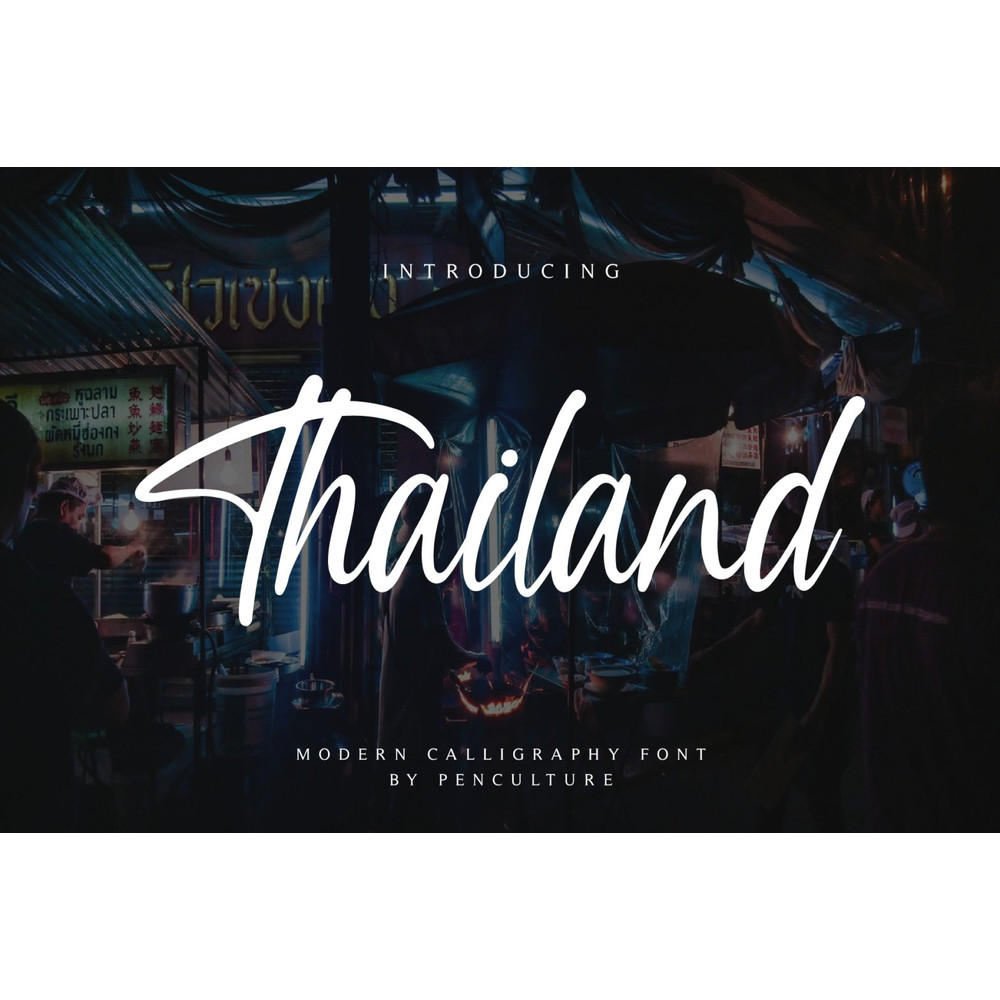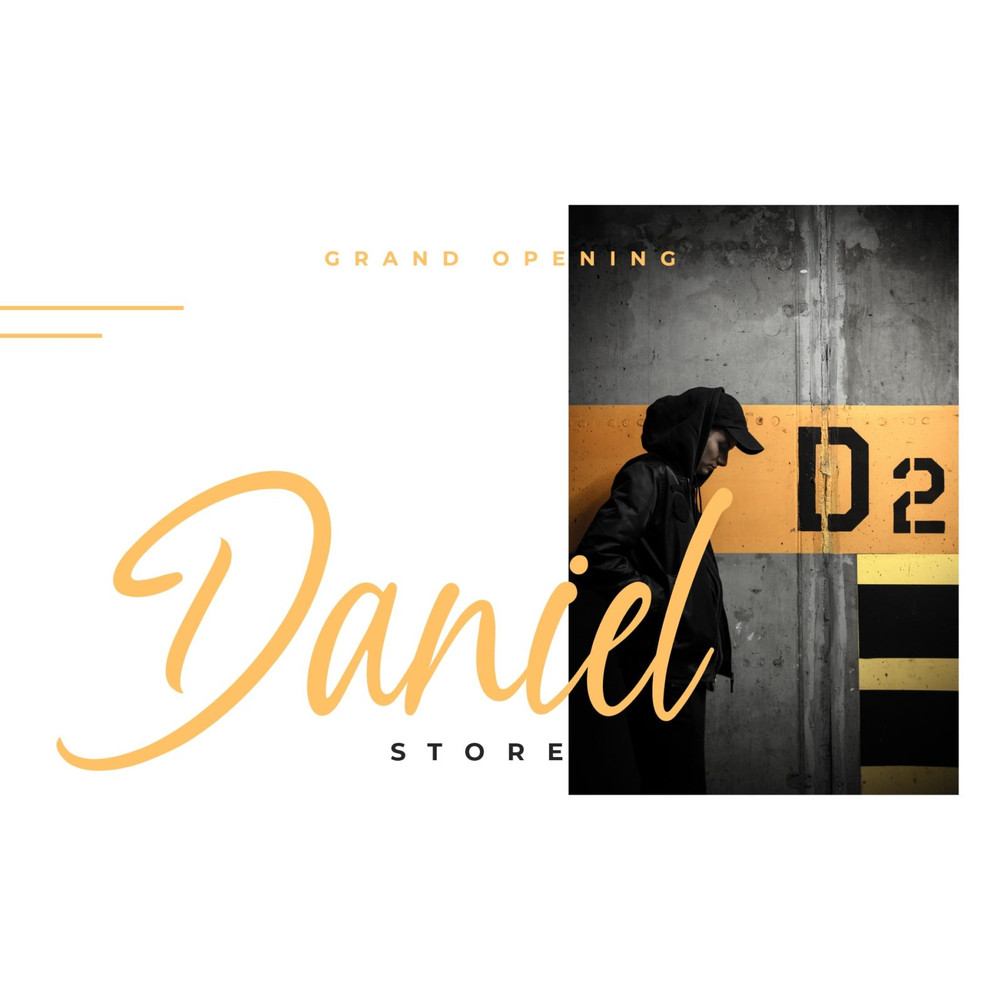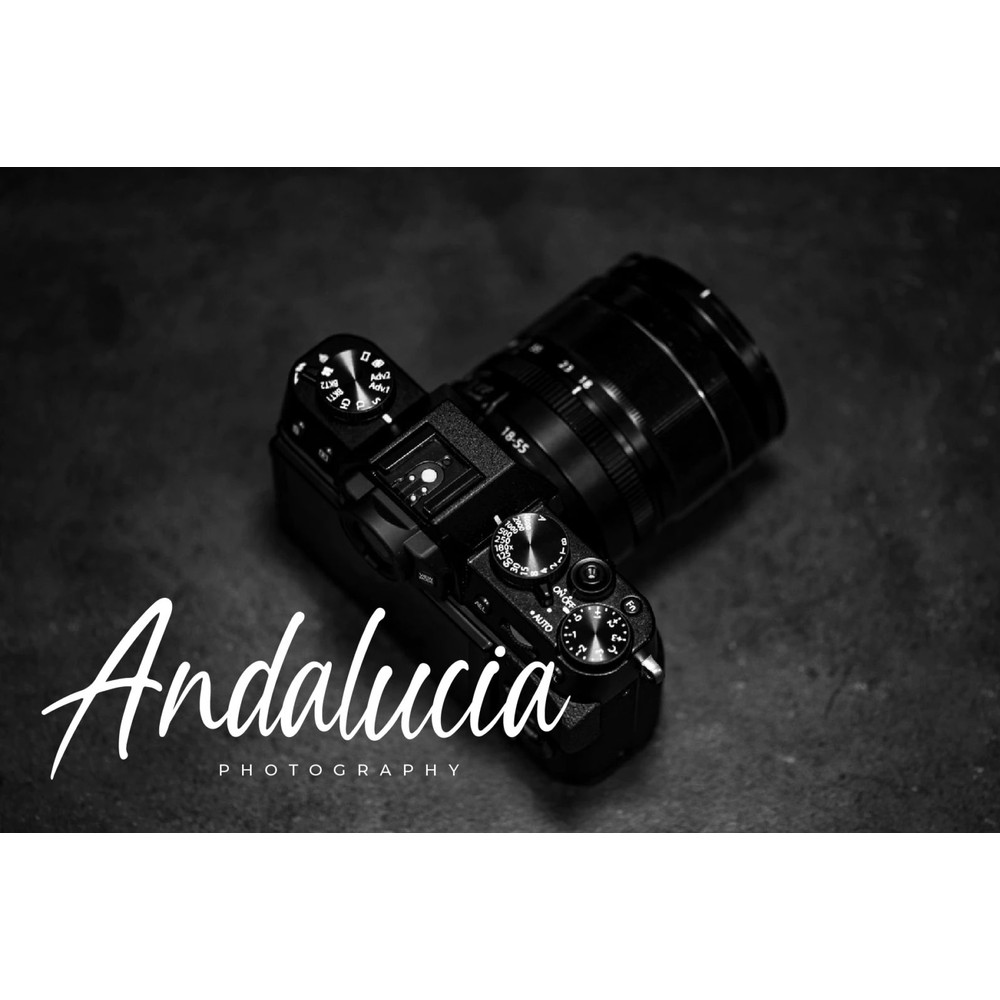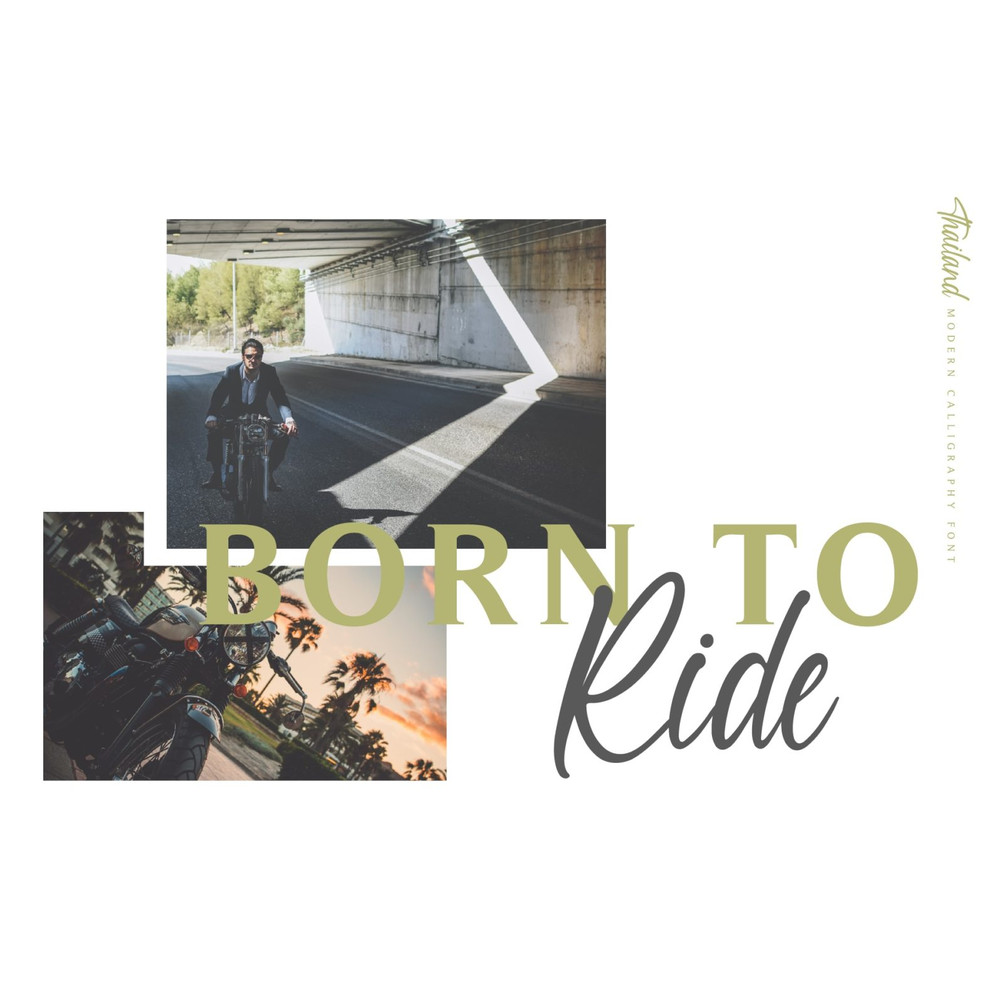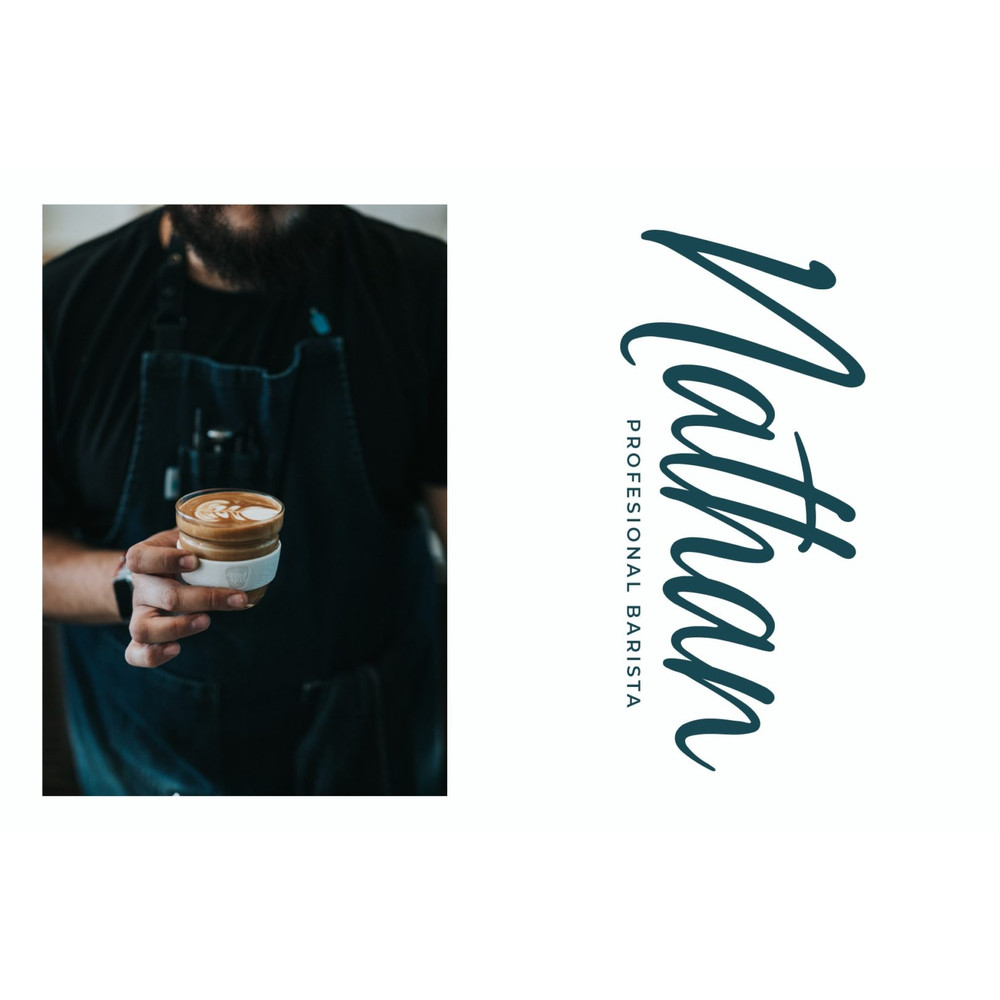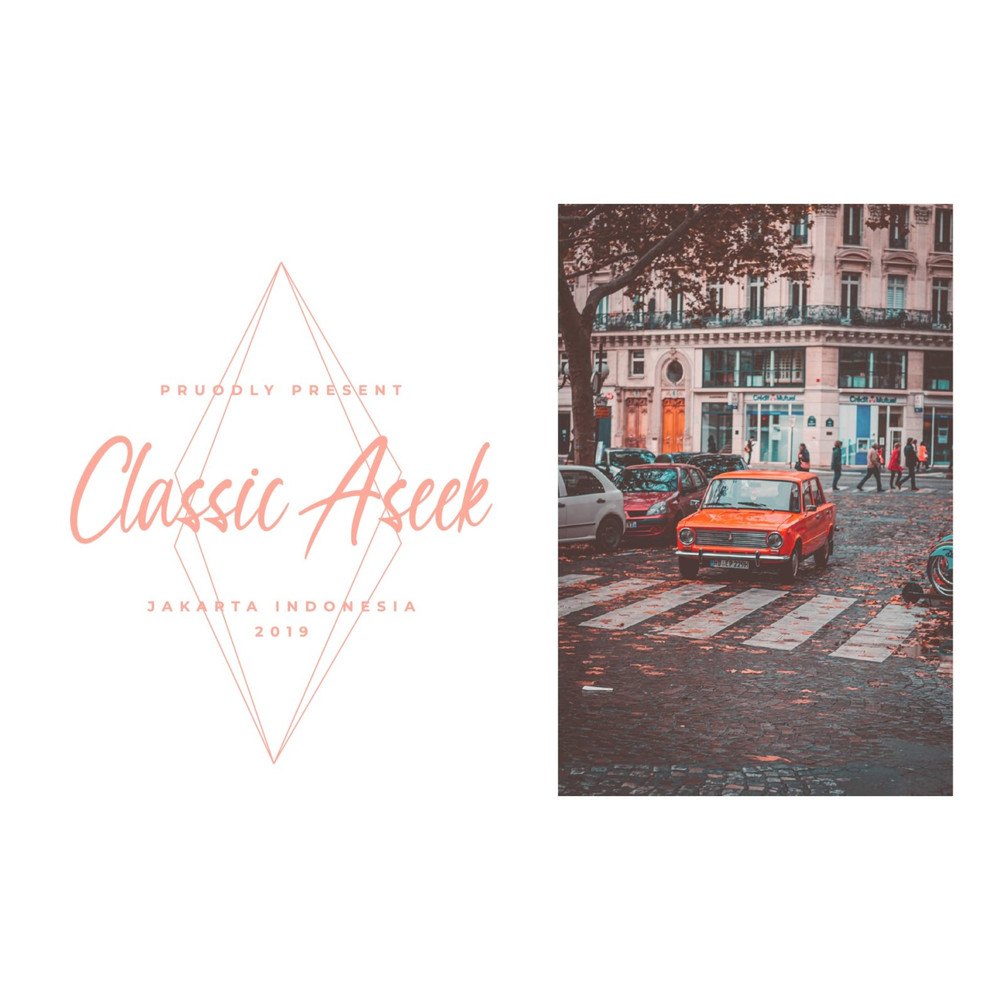
Thailand Script Trending Fonts - Digital Font
Thailand is beautiful modern calligraphy that easy to use and very suitable for various needs.
Feature and what will you get:
– Uppercase and lowercase
– Number
– Punctuation
– Multilingual support